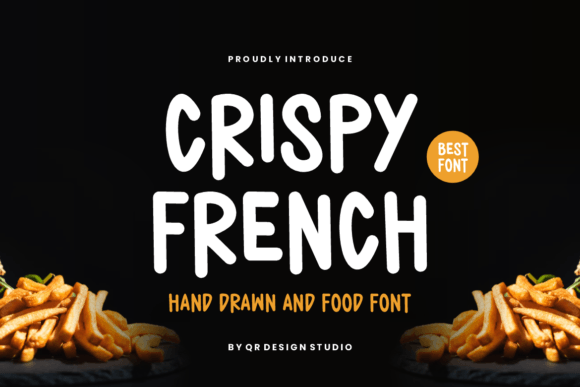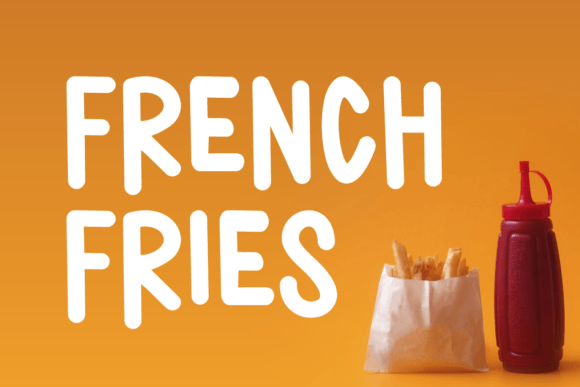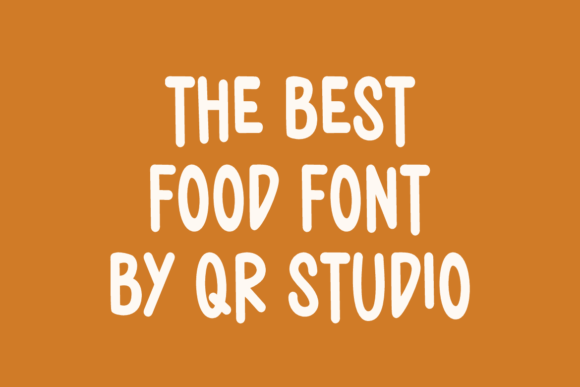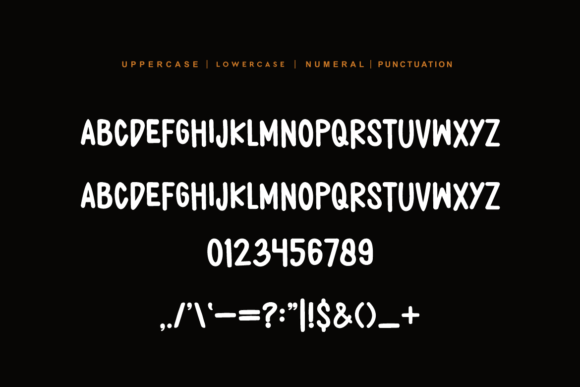
Crispy French Font
About the Crispy French Font
The Crispy French Font is here to transform your projects with its distinctive character and style. Crispy French is a sweet and friendly handwritten font. Its natural and unique style makes it incredibly fitting to a large pool of designs. The only limit is your imagination!
Crispy French thrives in applications requiring a friendly, approachable feel. It excels in headlines, short-form text on packaging, invitations, or social media graphics. Its charm also translates well to branding elements needing a handcrafted touch, such as logos or short taglines. However, avoid using it for body text or lengthy paragraphs; its informal nature would hinder readability.
The font’s inherent playfulness pairs well with clean sans-serif fonts like Open Sans for a balanced contrast, or a more geometric sans-serif for a modern feel. For a touch of elegance, consider pairing it with a delicate serif like Lora. Avoid pairing it with other script fonts, as this would create visual clutter and lose the unique character of Crispy French.
Crispy French projects a light-hearted, optimistic personality, perfect for brands targeting a younger demographic or those emphasizing warmth and approachability. Its informal style makes it unsuitable for projects requiring formality or a sense of authority.
Crispy French Font Usage Examples
Crispy French Font Example